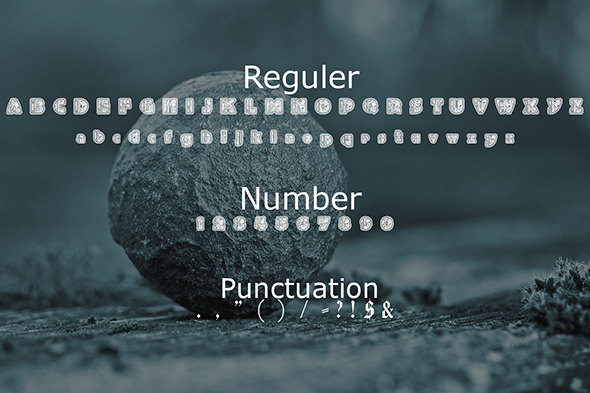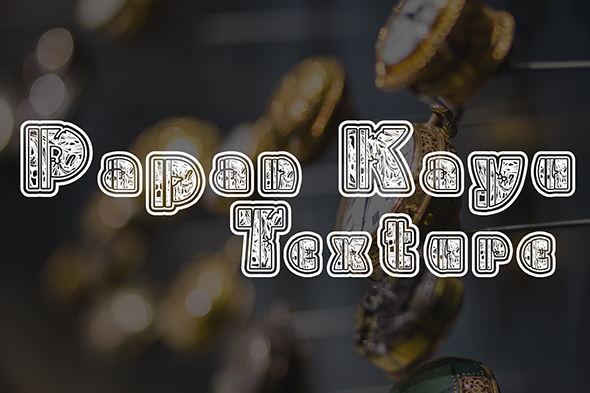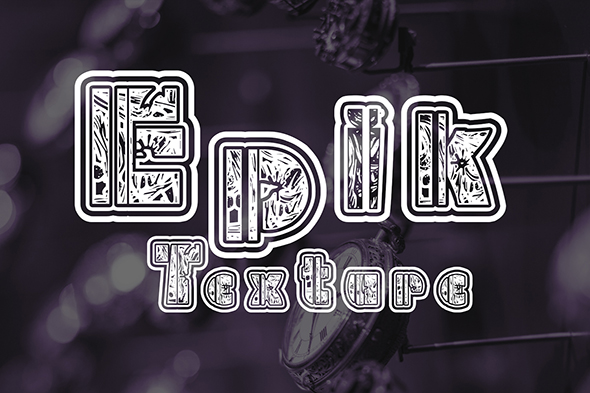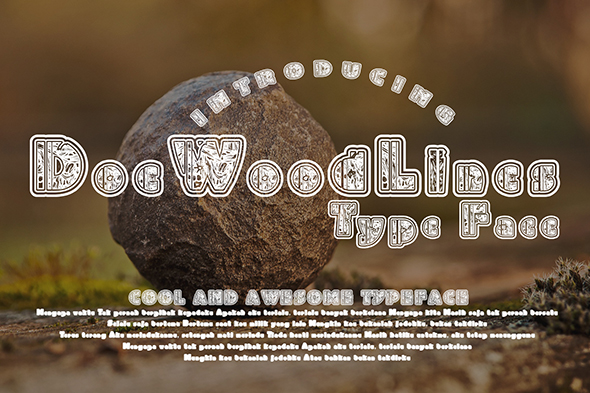
Discover the Charm of DoeWoodLines Font by Gblack Id.
Are you a designer or crafter looking for a unique and captivating font to elevate your creative projects? Look no further than the DoeWoodLines font by Gblack Id. This charming font is perfect for adding a touch of rustic elegance to your designs, and in this article, we’ll dive into its features, benefits, and uses.
What is DoeWoodLines Font?
DoeWoodLines font is a beautifully crafted typeface designed by Gblack Id, a talented font creator. This font is characterized by its rustic, hand-drawn aesthetic, with lines that resemble wood grain or natural textures. The result is a warm, earthy feel that’s perfect for designs that require a natural, outdoorsy vibe.
Key Features of DoeWoodLines Font
- Unique Texture: The font features a distinctive wood grain texture that adds depth and character to your designs.
- Hand-Drawn Aesthetic: The font’s hand-drawn style gives it a personal, artisanal feel that’s perfect for crafty or DIY projects.
- Versatile: DoeWoodLines font can be used for a wide range of projects, from branding and packaging to signage and crafts.
- Easily Customizable: The font is highly customizable, allowing you to adjust the size, color, and style to fit your design needs.
Benefits of Using DoeWoodLines Font
So why choose DoeWoodLines font for your next project? Here are just a few benefits:
- Adds a Touch of Rustic Charm: The font’s natural, earthy feel adds a unique and captivating element to your designs.
- Stand Out from the Crowd: With its distinctive texture and hand-drawn style, DoeWoodLines font helps your designs stand out in a crowded marketplace.
- Perfect for Crafty Projects: The font’s artisanal feel makes it perfect for crafty or DIY projects, such as handmade cards, gift tags, or signage.
Uses for DoeWoodLines Font
So what can you use DoeWoodLines font for? The possibilities are endless!
- Branding and Packaging: Use the font to add a touch of rustic elegance to your brand’s packaging and marketing materials.
- Signage and Displays: The font’s natural, earthy feel makes it perfect for signage and displays, such as storefront signs, banners, or trade show booths.
- Crafting and DIY Projects: Use the font to add a personal touch to handmade cards, gift tags, or other crafty projects.
- Stationery and Invitations: The font’s charming, rustic feel makes it perfect for stationery, invitations, and other paper crafts.
Tips for Using DoeWoodLines Font
Here are a few tips for getting the most out of DoeWoodLines font:
- Experiment with Colors: The font’s natural texture looks great in a range of earthy colors, from browns and tans to greens and blues.
- Play with Size and Scale: Experiment with different font sizes and scales to add visual interest to your designs.
- Combine with Other Fonts: Try pairing DoeWoodLines font with other fonts to create a unique and eye-catching combination.
In conclusion, DoeWoodLines font by Gblack Id. is a unique and captivating typeface that’s perfect for designers and crafters looking to add a touch of rustic elegance to their projects. With its natural texture, hand-drawn aesthetic, and versatility, this font is sure to become a favorite in your design arsenal. So why wait? Download DoeWoodLines font today and start creating beautiful, eye-catching designs that stand out from the crowd!